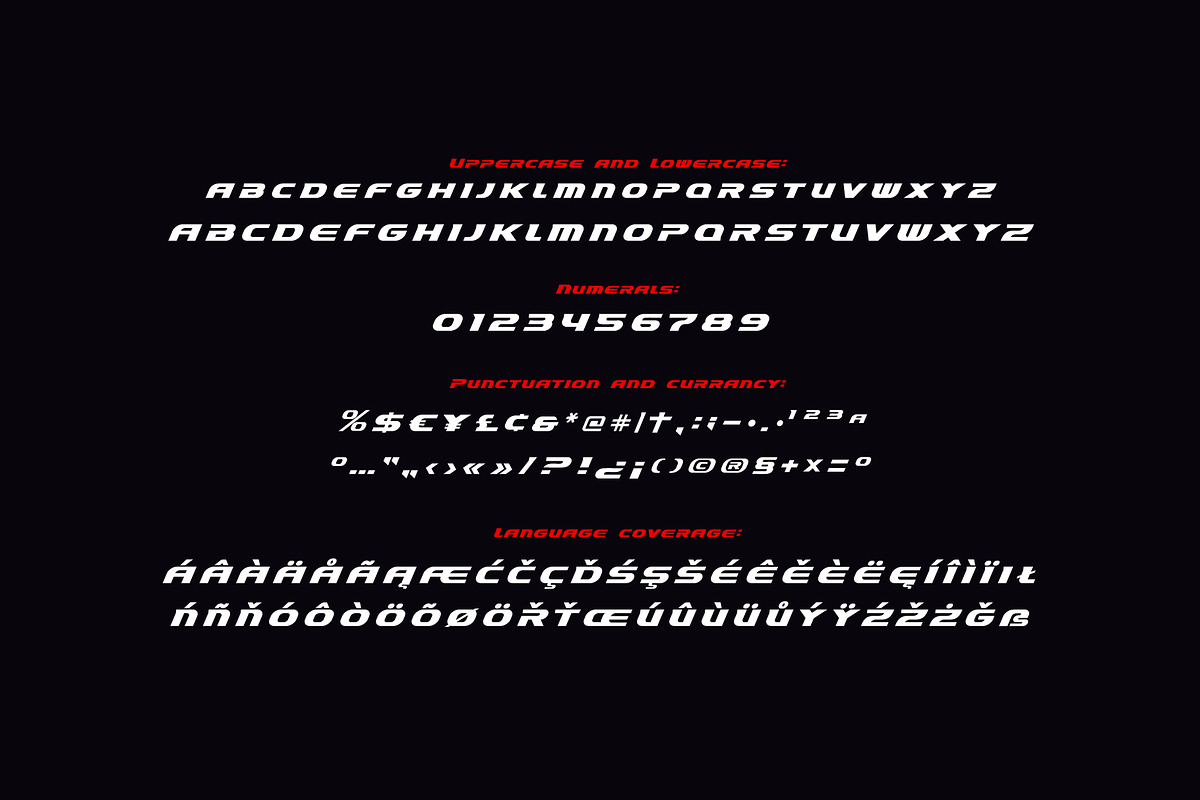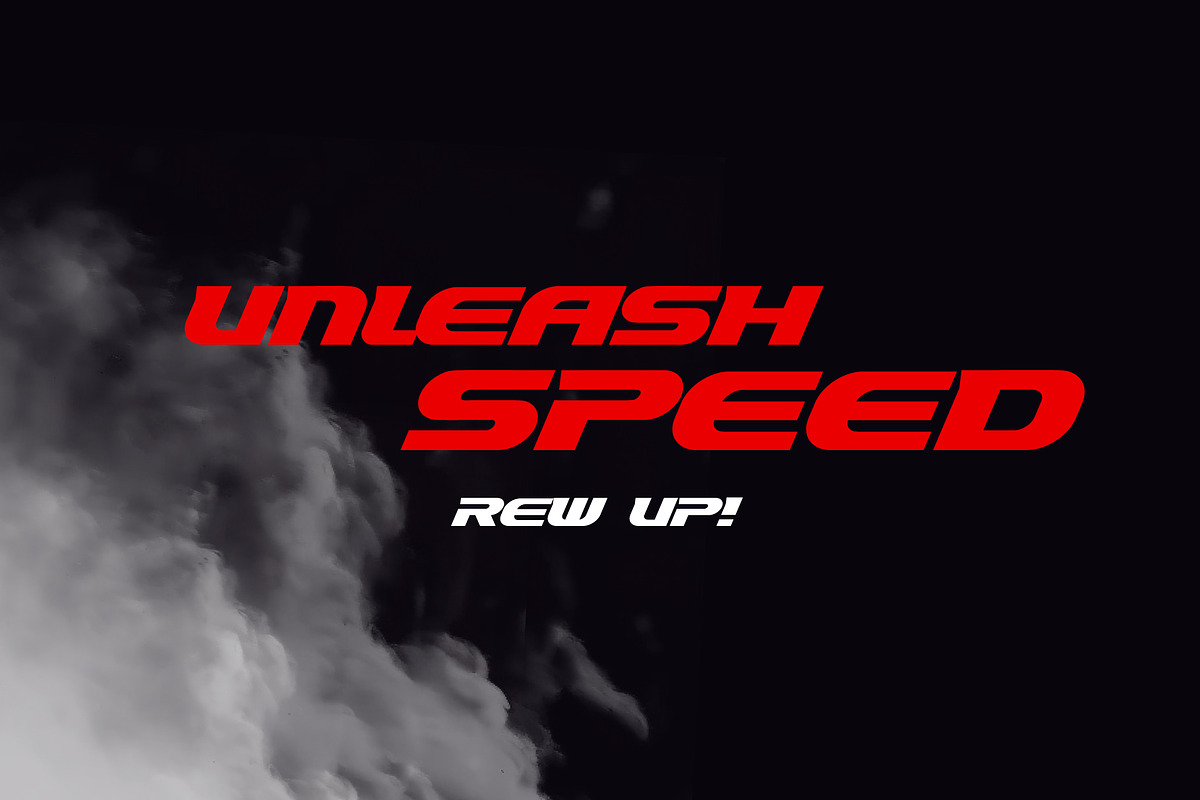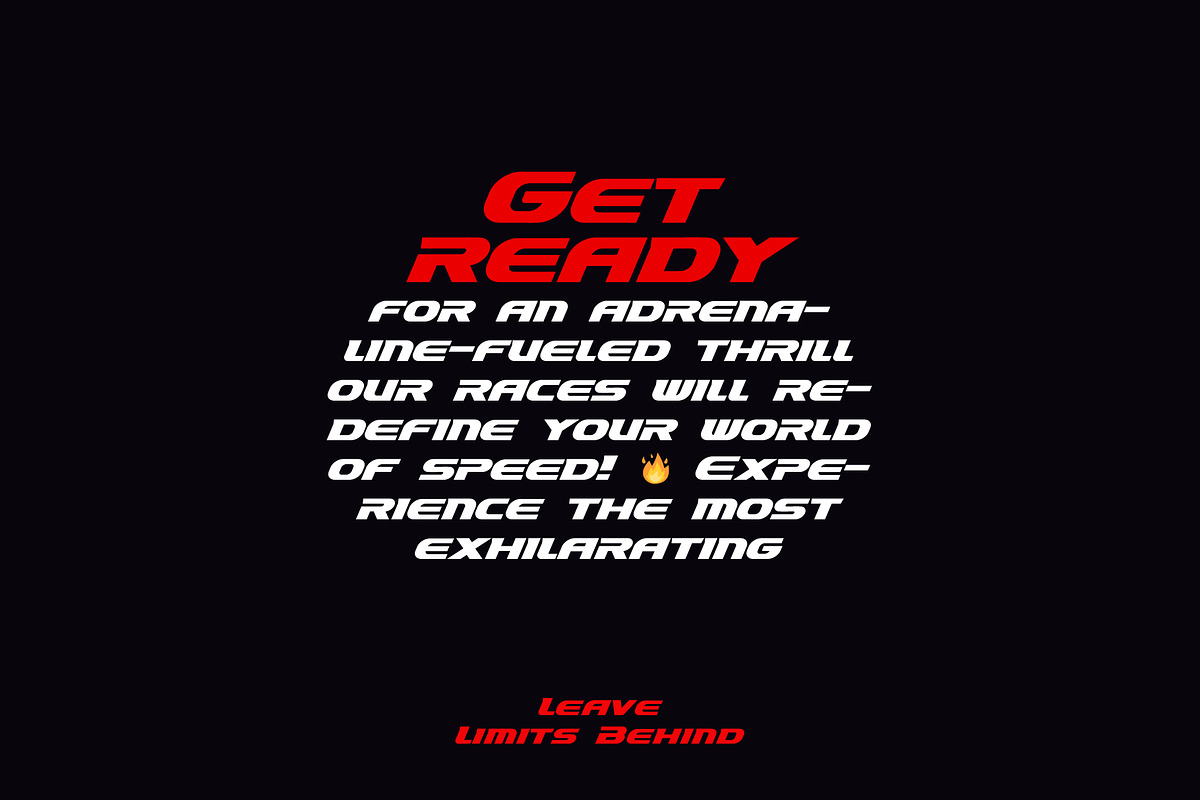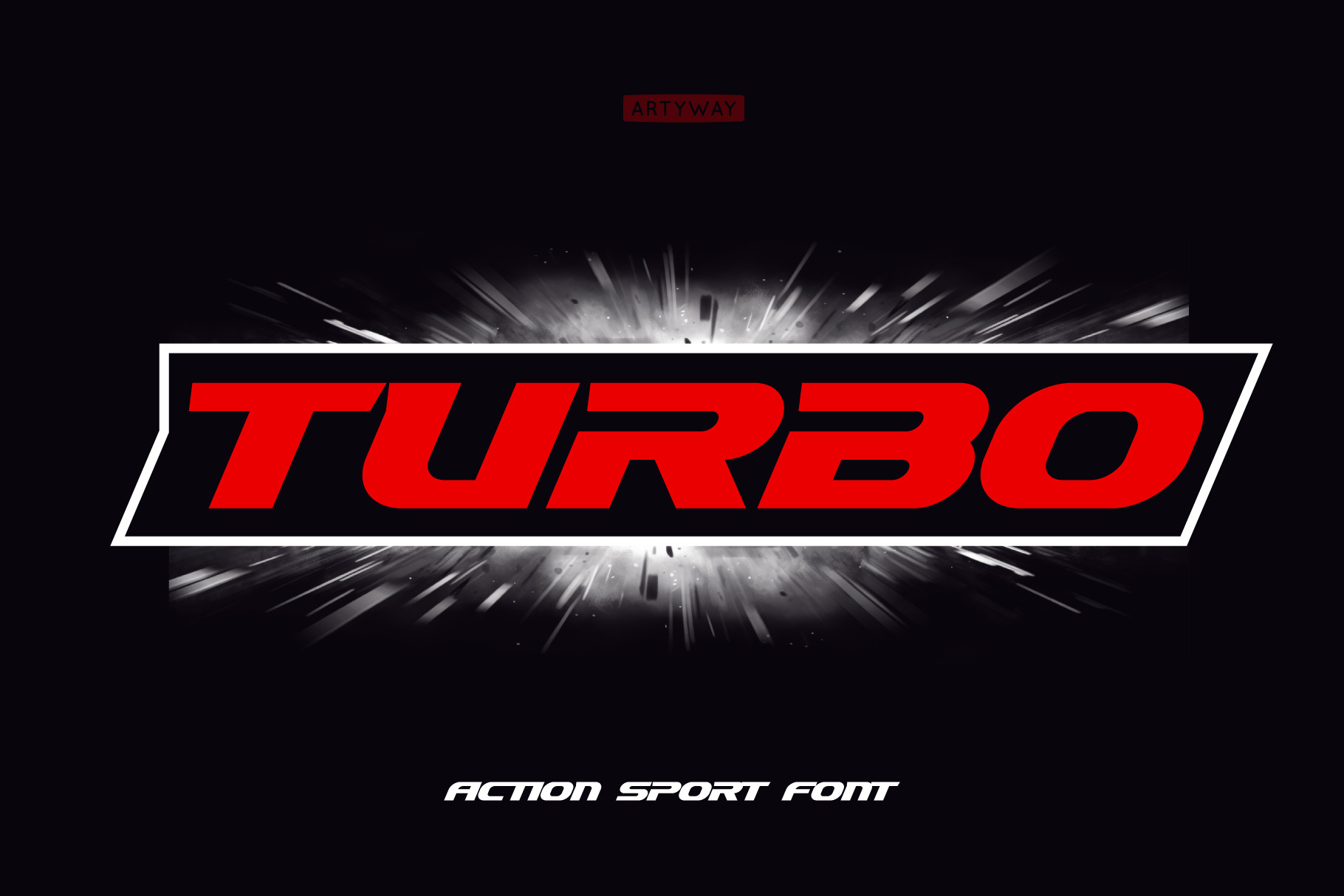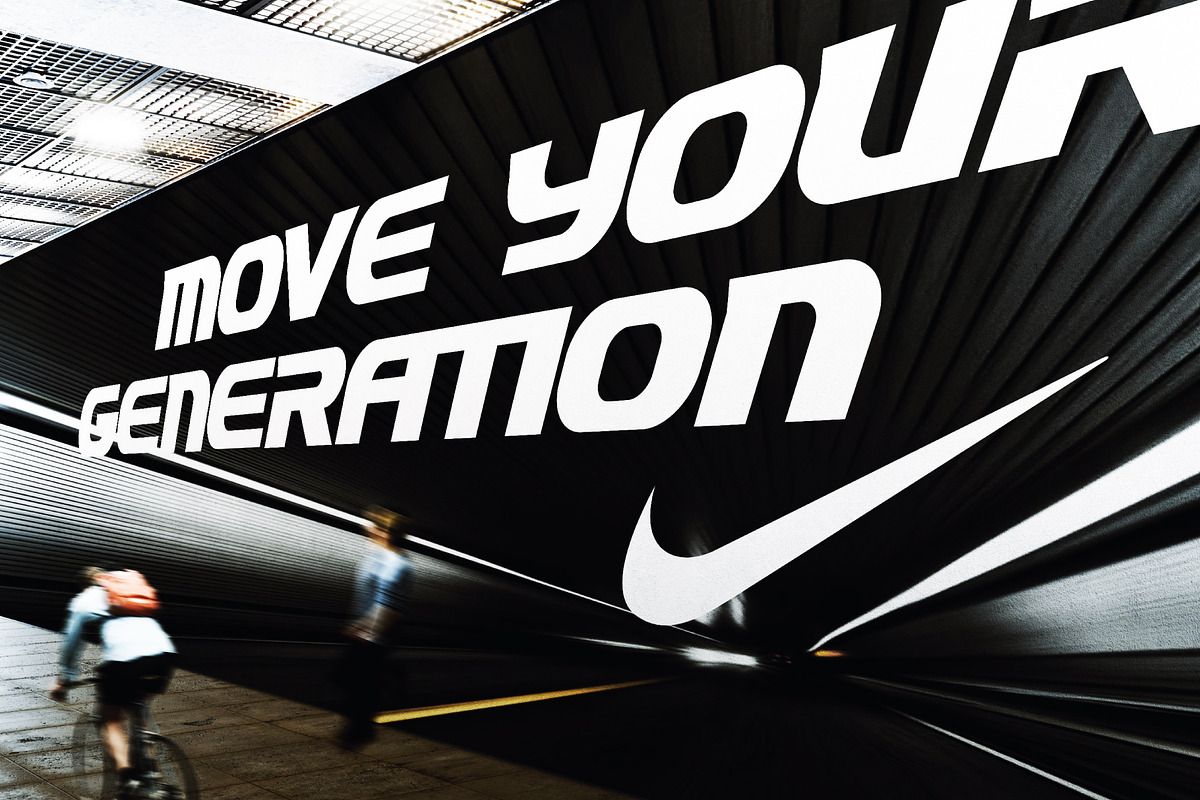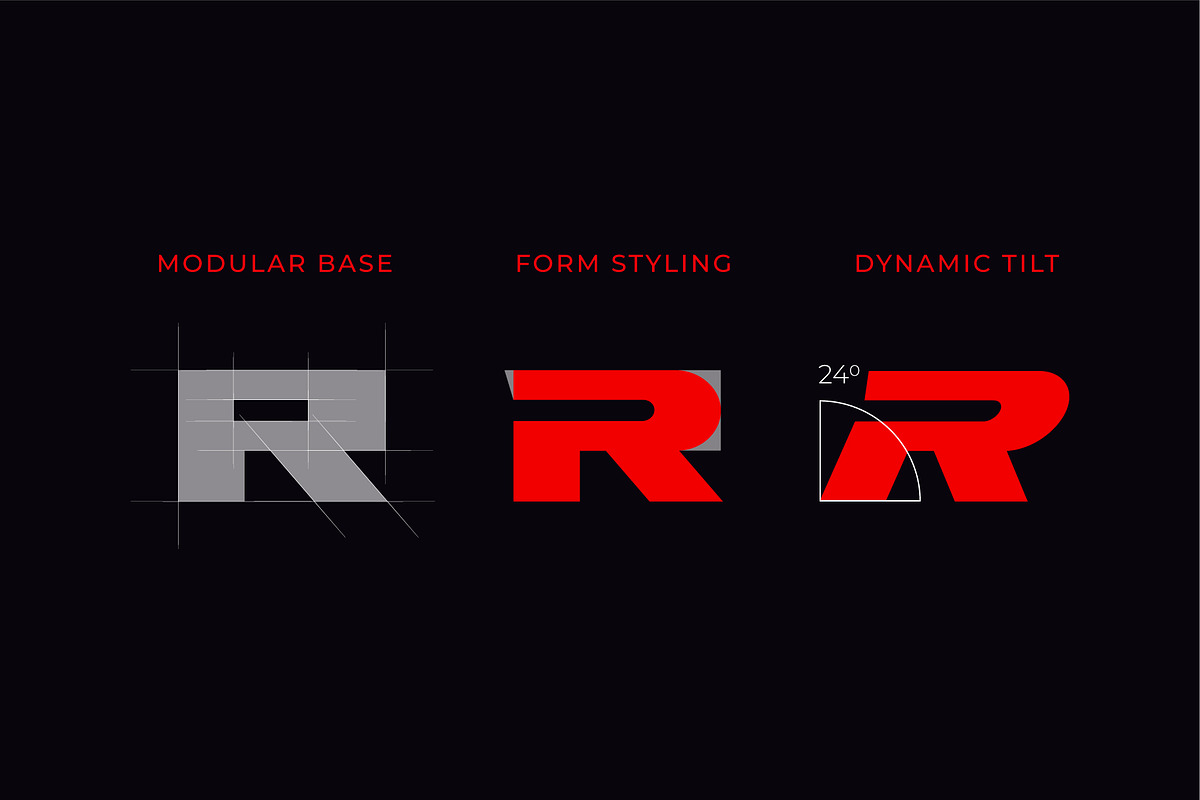
Turbo Headline Font
Awesome sport font with italic wide letters, modern letter cutout and dynamic slant. Ideal for sports headline of speed car race, logo and monogram of automotive game or other modern dynamic text
Font "Turbo" compares favorably with its readability and massiveness, creates the effect of power and speed.
Designed as your favorite font "speed" , but with a slightly different font design, check it